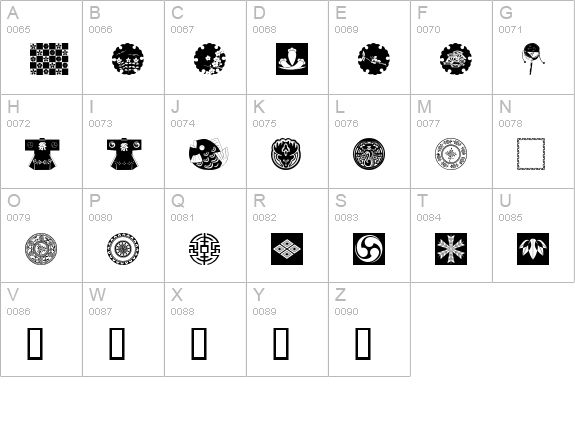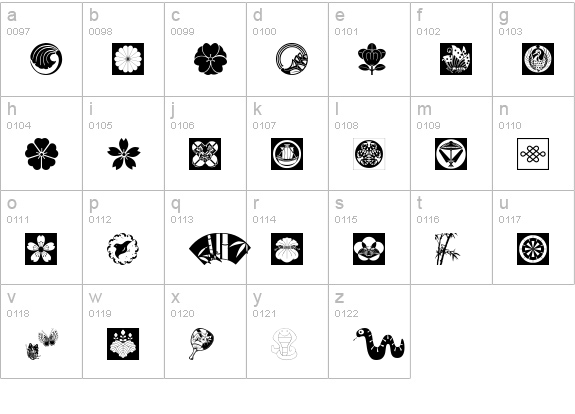
OrientalDesign Font Details
OrientalDesign font is a beautifully crafted typeface that exudes elegance and sophistication. Its intricate details and unique characters make it perfect for adding a touch of exotic flair to your designs. Inspired by traditional Oriental art and culture, this font captures the essence of the East with its flowing lines and intricate patterns. What's even better is that OrientalDesign font is available for free download at FontsMarket.com. Now you can easily enhance your projects with this stunning font without having to worry about any cost. Whether you're working on a branding project, wedding invitation, or any other creative endeavor, OrientalDesign font will surely make a statement and leave a lasting impression. Upgrade your designs with this captivating font today and let your creativity shine!